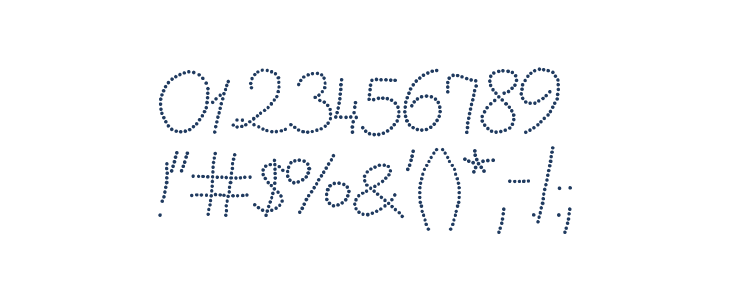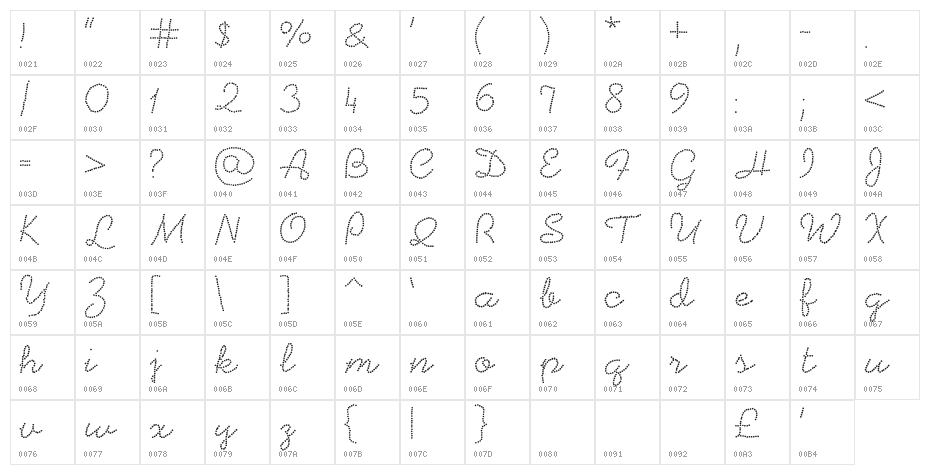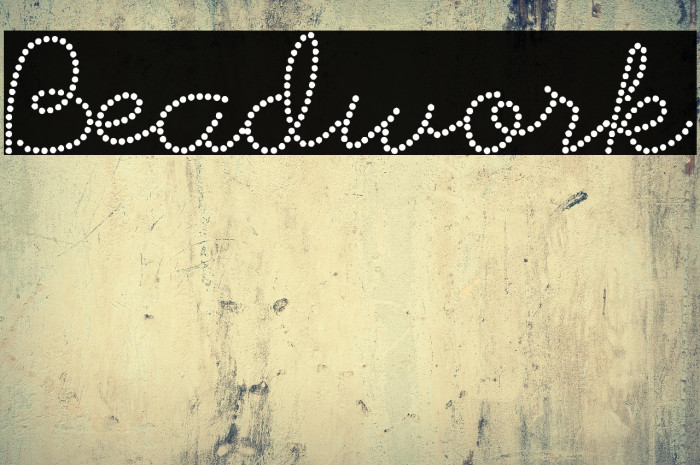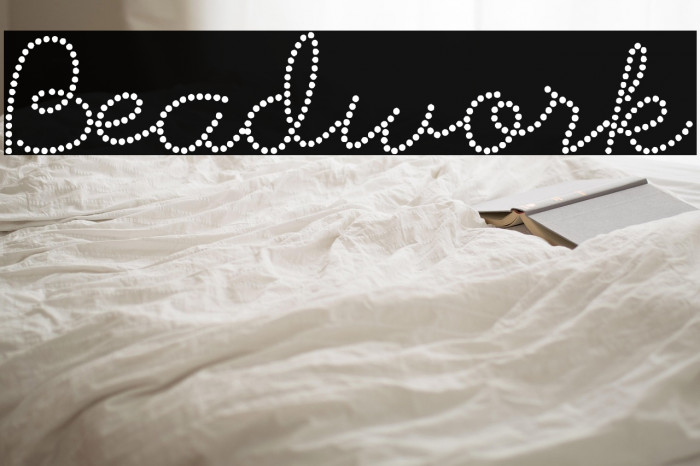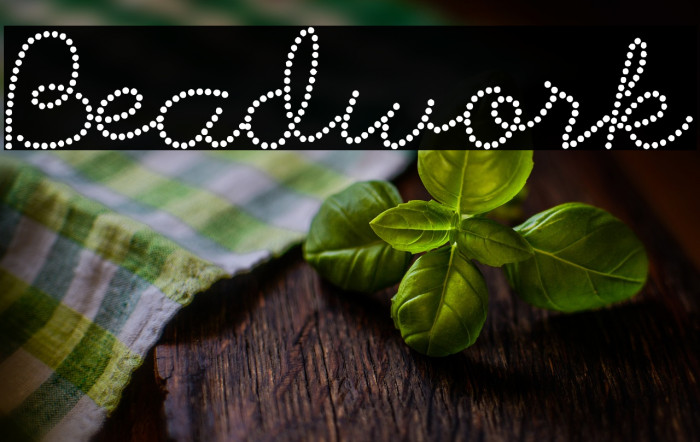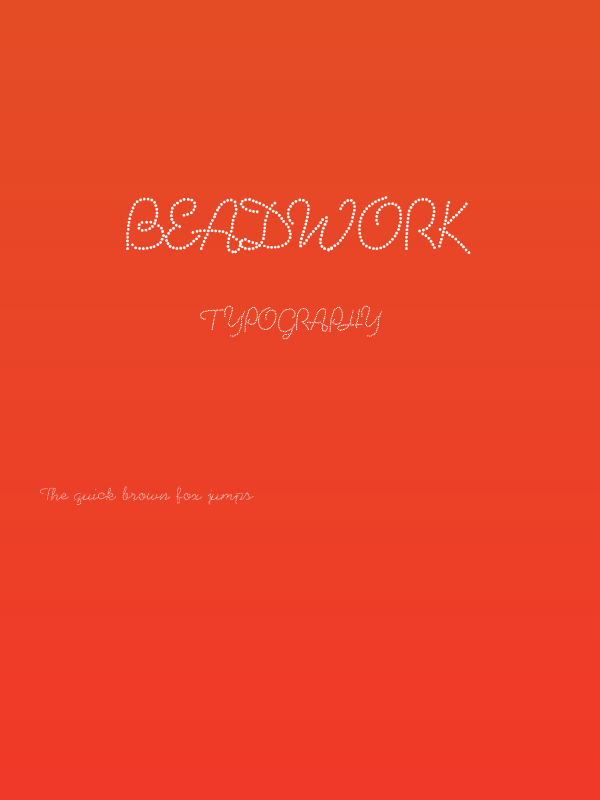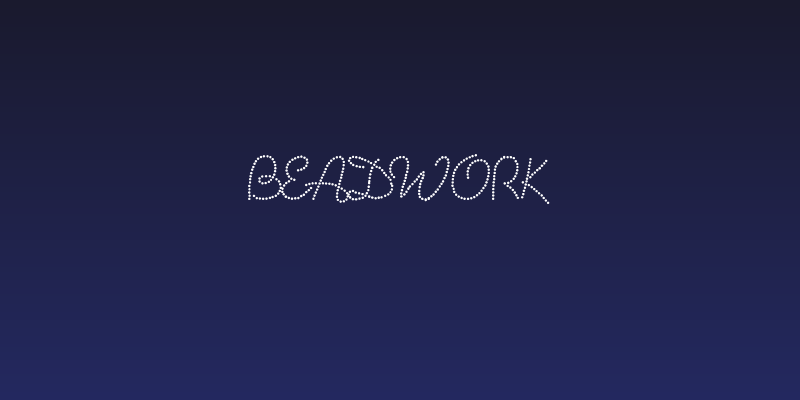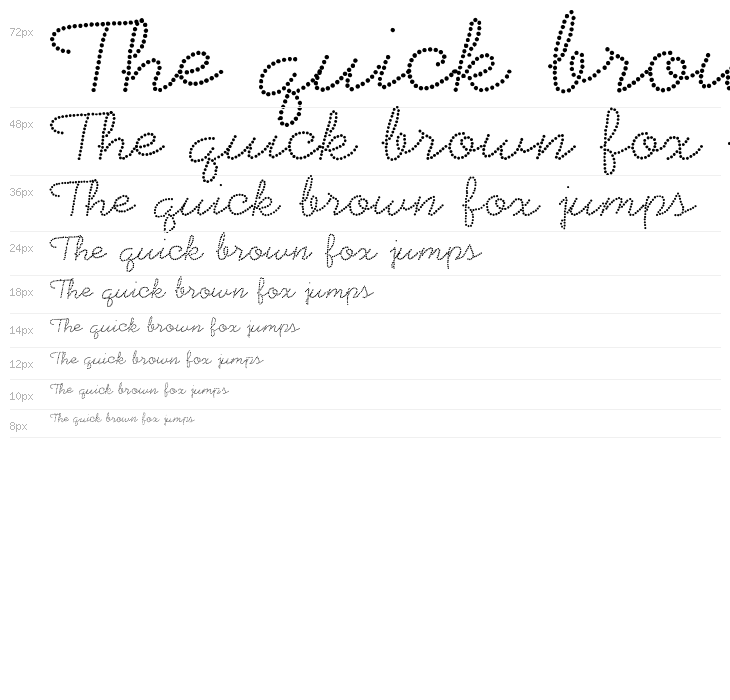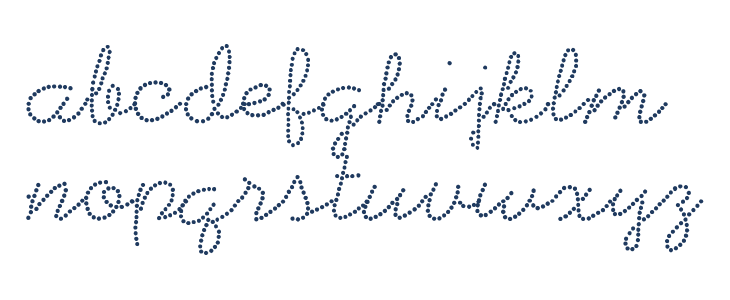
Beadwork Font
Beadwork Description
This font features a unique design where each character is composed of small, evenly spaced dots, creating a bead-like appearance. The uppercase and lowercase letters maintain a consistent flow, with a script-like, cursive style that adds elegance and fluidity. The numbers and special characters follow the same dotted pattern, ensuring uniformity across all elements. This font is visually striking and offers a playful yet sophisticated look, making it ideal for creative and artistic projects. The overall design is both decorative and functional, providing a distinctive aesthetic that stands out.
| Use Case | Logos, Headlines, Artistic projects |
| Proposed Projects | Ideal for invitations, greeting cards, artistic branding, and decorative posters. |